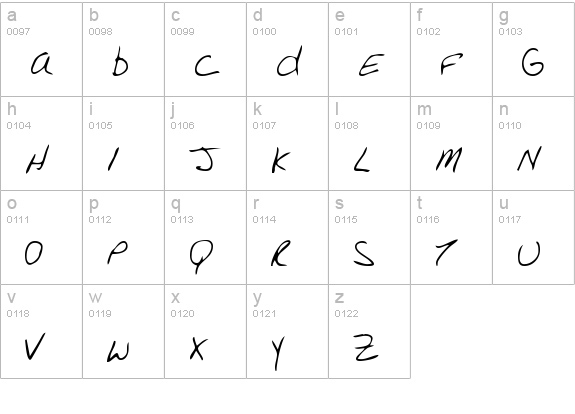
HigginsHand Regular is the standard, neutral variant in the HigginsHand typeface family \xE2\x80\x94 well suited to general body text, paragraphs, and standard typographic work.
HigginsHand Regular font is a charming and versatile typeface that exudes a sense of warmth and friendliness. Its smooth lines and natural curves give it a handwritten feel, perfect for adding a personal touch to your projects. This font is suitable for a wide range of designs, from invitations and greeting cards to branding and social media graphics. Best of all, HigginsHand Regular font is available for free download at FontsMarket.com. Whether you're a designer looking to add a unique flair to your work or simply someone who appreciates high-quality fonts, this is a must-have addition to your collection. Don't miss out on the opportunity to enhance your projects with this beautiful and freely accessible font.